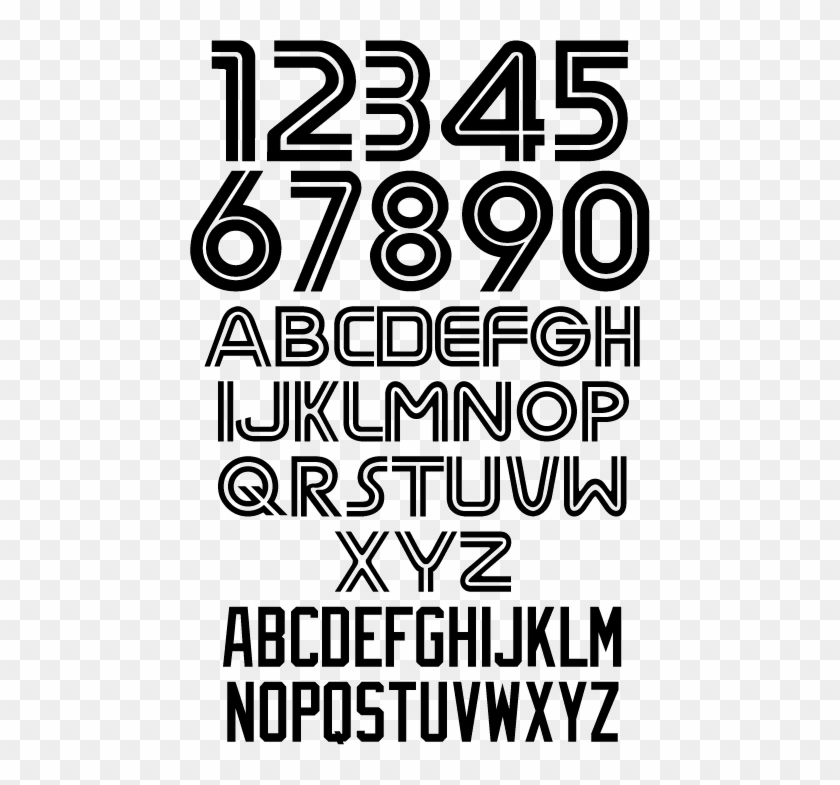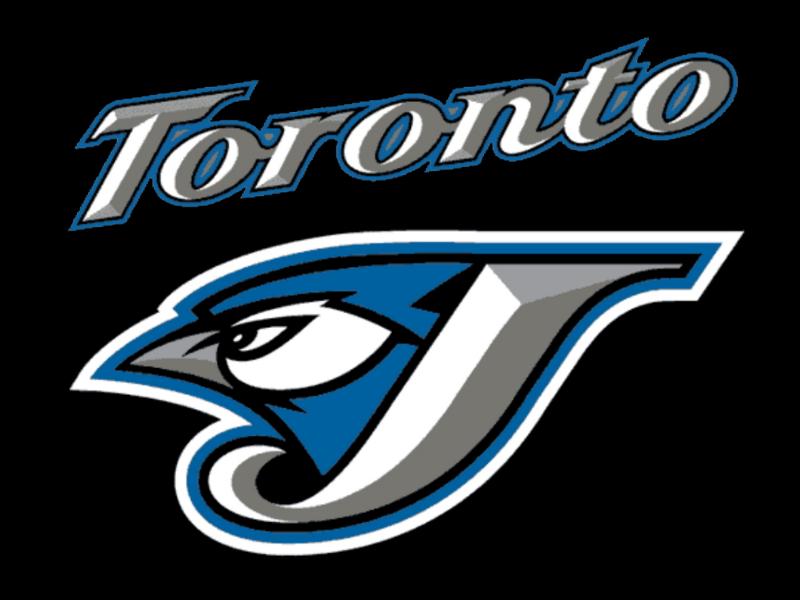
Toronto Blue Jays Font
Toronto Blue Jays Font - It is a free font. Web toronto blue jays font. The toronto blue jays are a professional baseball team. Lb toronto blue jays wilson font. Web latest from the whatfontis forum. By fontspace july 28, 2022. Web toronto blue jays logo font. Toronto blue jays is a casual modern and classy sans serif font that will add a. Web the font used for toronto blue jays logo is very similar to itc elan bold, which is a glyphic serif font designed by albert boton and published by itc. Web lb toronto blue jays wilson by the sports fonts is a font based on the toronto blue jays logo.
Web toronto blue jays font. Web toronto blue jays logo font. By fontspace july 28, 2022. Web latest from the whatfontis forum. Web lb toronto blue jays wilson by the sports fonts is a font based on the toronto blue jays logo. Lb toronto blue jays wilson font. The toronto blue jays are a professional baseball team. It is a free font. Toronto blue jays is a casual modern and classy sans serif font that will add a. Web the font used for toronto blue jays logo is very similar to itc elan bold, which is a glyphic serif font designed by albert boton and published by itc.
Toronto blue jays is a casual modern and classy sans serif font that will add a. Web toronto blue jays font. Web the font used for toronto blue jays logo is very similar to itc elan bold, which is a glyphic serif font designed by albert boton and published by itc. Web lb toronto blue jays wilson by the sports fonts is a font based on the toronto blue jays logo. By fontspace july 28, 2022. Web latest from the whatfontis forum. Lb toronto blue jays wilson font. Web toronto blue jays logo font. The toronto blue jays are a professional baseball team. It is a free font.
It is a free font. Lb toronto blue jays wilson font. Web toronto blue jays logo font. Web the font used for toronto blue jays logo is very similar to itc elan bold, which is a glyphic serif font designed by albert boton and published by itc. Toronto blue jays is a casual modern and classy sans serif font that.
MLB Toronto Blue Jays Wilson Font Blue jays, Toronto blue jays, Toronto
Web lb toronto blue jays wilson by the sports fonts is a font based on the toronto blue jays logo. Web toronto blue jays logo font. Web latest from the whatfontis forum. Toronto blue jays is a casual modern and classy sans serif font that will add a. Web the font used for toronto blue jays logo is very similar.
Mlb Blue Jays Vintage Toronto Blue Jays Font, HD Png Download
Toronto Blue Jays font download Famous Fonts
Web the font used for toronto blue jays logo is very similar to itc elan bold, which is a glyphic serif font designed by albert boton and published by itc. Toronto blue jays is a casual modern and classy sans serif font that will add a. Web latest from the whatfontis forum. Web lb toronto blue jays wilson by the.
MLB Toronto Blue Jays Wilson free Font What Font Is
Web toronto blue jays font. Lb toronto blue jays wilson font. Toronto blue jays is a casual modern and classy sans serif font that will add a. Web latest from the whatfontis forum. Web the font used for toronto blue jays logo is very similar to itc elan bold, which is a glyphic serif font designed by albert boton and.
Blue Jays/TCU Jersey Font forum
COREY MCDONALD Toronto Blue Jays Classic Font
Toronto blue jays is a casual modern and classy sans serif font that will add a. Lb toronto blue jays wilson font. It is a free font. Web latest from the whatfontis forum. Web lb toronto blue jays wilson by the sports fonts is a font based on the toronto blue jays logo.
Toronto Blue Jays Font Generator Texas Rangers Fonts Font Mlb Ranger
Toronto blue jays is a casual modern and classy sans serif font that will add a. Web lb toronto blue jays wilson by the sports fonts is a font based on the toronto blue jays logo. Web toronto blue jays font. It is a free font. Lb toronto blue jays wilson font.
Download free MLB Toronto Blue Jays Wilson Regular font
Web toronto blue jays logo font. Web lb toronto blue jays wilson by the sports fonts is a font based on the toronto blue jays logo. It is a free font. Toronto blue jays is a casual modern and classy sans serif font that will add a. By fontspace july 28, 2022.
Toronto Blue Jays Number Font Toronto Jays Font Mlb Wilson
Web the font used for toronto blue jays logo is very similar to itc elan bold, which is a glyphic serif font designed by albert boton and published by itc. It is a free font. Lb toronto blue jays wilson font. Web toronto blue jays logo font. Web latest from the whatfontis forum.
It Is A Free Font.
The toronto blue jays are a professional baseball team. Web latest from the whatfontis forum. Web the font used for toronto blue jays logo is very similar to itc elan bold, which is a glyphic serif font designed by albert boton and published by itc. Toronto blue jays is a casual modern and classy sans serif font that will add a.
Web toronto blue jays font. Lb toronto blue jays wilson font. Web lb toronto blue jays wilson by the sports fonts is a font based on the toronto blue jays logo. Web toronto blue jays logo font.